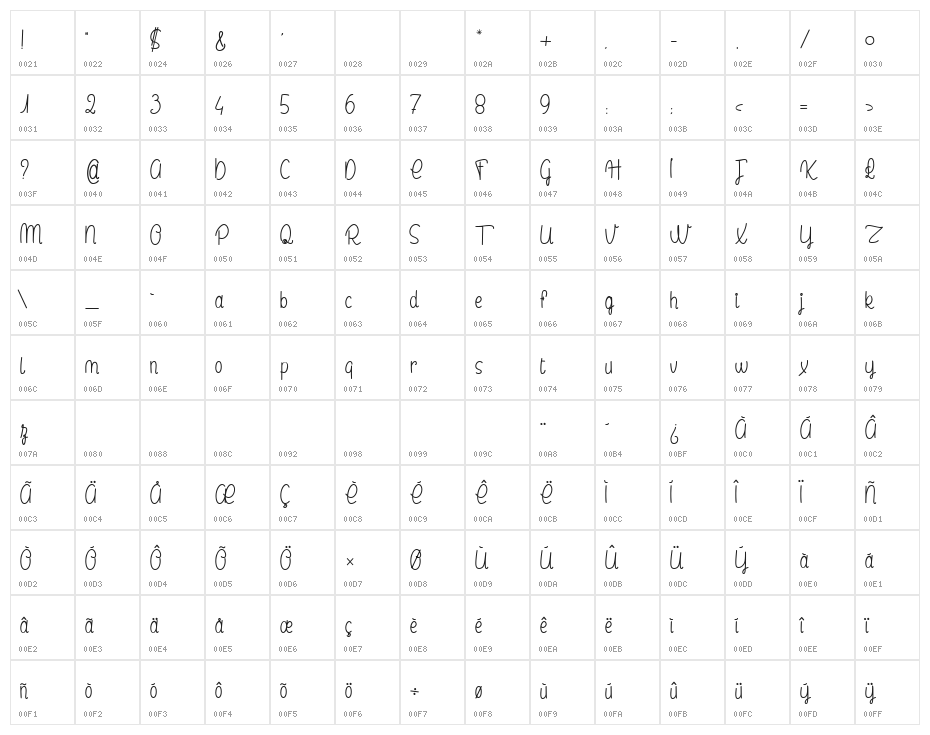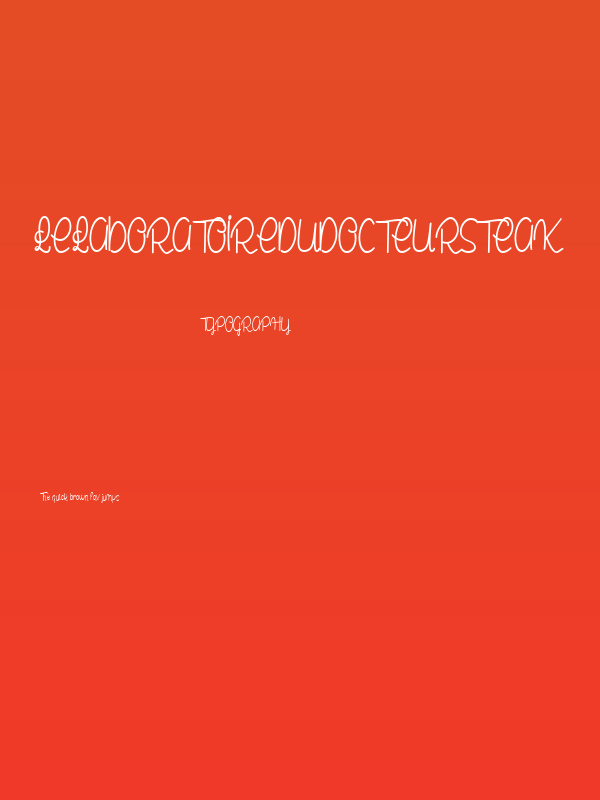
leLaboratoireduDocteurSteak Font
leLaboratoireduDocteurSteak Description
This font features a playful and whimsical style with a handwritten appearance. The characters are elongated and slightly irregular, giving it a casual and friendly look. The uppercase letters are tall and narrow, while the lowercase letters maintain a consistent flow with rounded edges. The numbers and special characters follow the same playful aesthetic, making the font suitable for informal and creative projects. The overall design is cohesive, with a consistent stroke width that adds to its legibility and charm.
| Use Case | Logos, Headlines, Informal Text |
| Proposed Projects | Ideal for children's books, greeting cards, playful branding, and creative posters. |